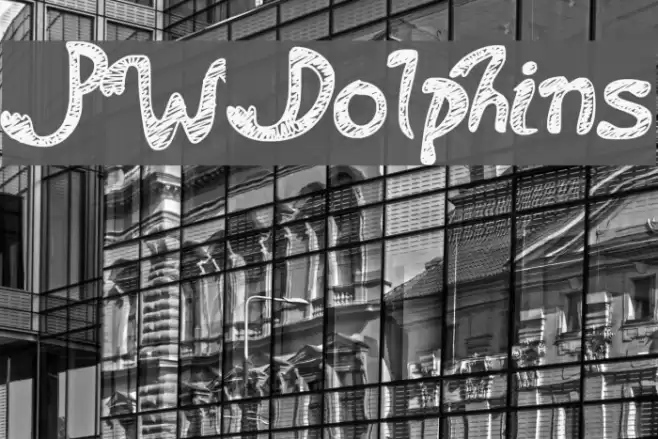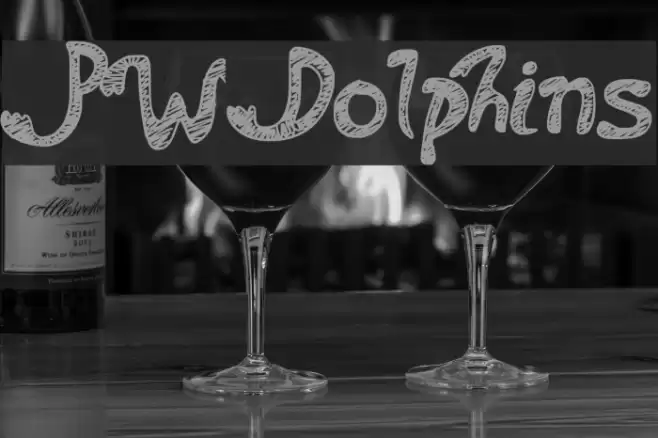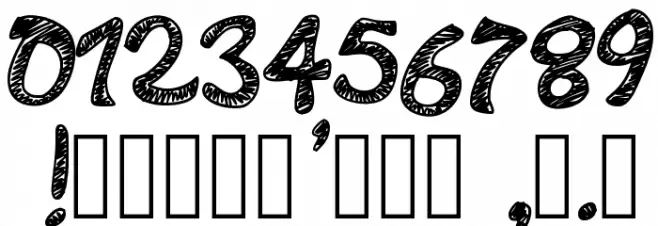
PWDolphins Font
PWDolphins Description
This font features a playful and whimsical design, characterized by its hand-drawn, doodle-like appearance. Each character is filled with intricate patterns and textures, giving it a unique and artistic flair. The letters have a casual, flowing style with varying stroke widths that add to its dynamic and lively feel. The font maintains a consistent baseline, while the ascenders and descenders are slightly exaggerated, enhancing its quirky and fun personality. This font is ideal for projects that require a touch of creativity and individuality.
A playful, hand-drawn font with intricate patterns and a whimsical style from Uncategorized fonts.
- Proposed Projects: Ideal for children's book covers, creative posters, greeting cards, and playful branding.